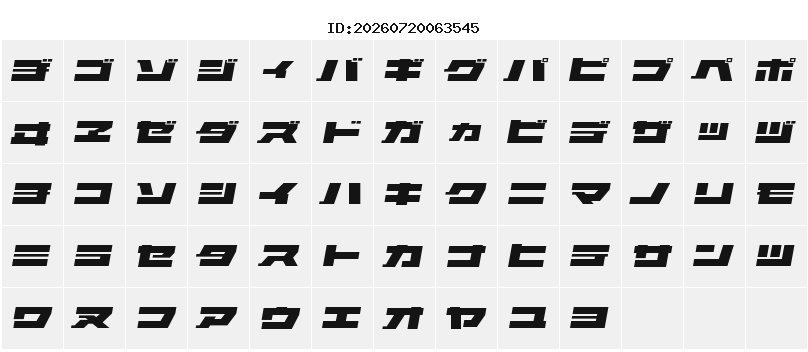
• Font Name: ELEPHANT K Oblique
• Font Style: ELEPHANT K Oblique
• Full Font Name: ELEPHANT K Oblique
About ELEPHANT K Oblique.ttf
ELEPHANT K Oblique.ttf is a modern, elegant sans-serif font designed for ultimate readability and visual harmony. Perfect for branding, headlines, web design, and print materials.